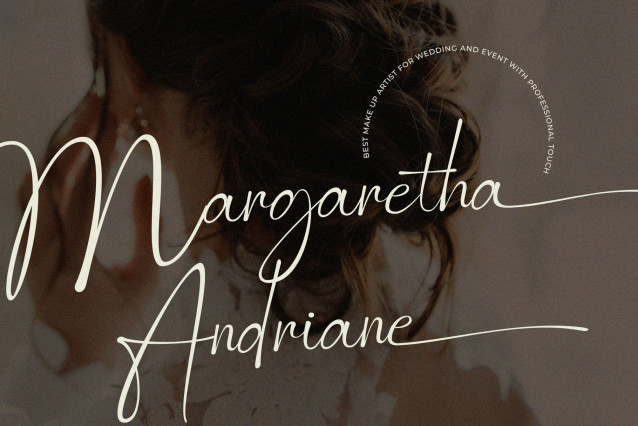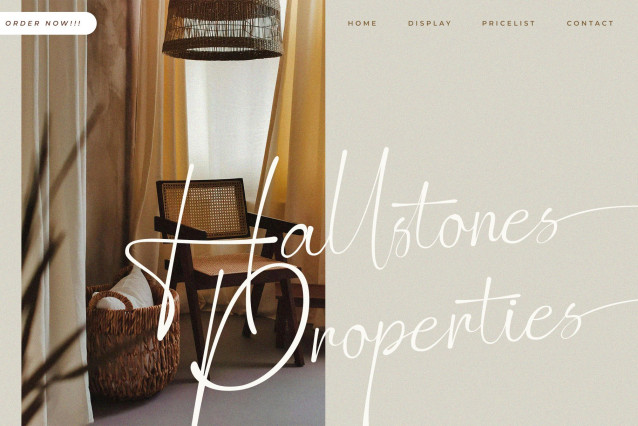
Balligesta Signature Font
Balligesta Signature Font is a elegant and stylish handwritten script, that you can use to perfect your design. You will get full set of lowercase and uppercase letters, multilingual, numerals and punctuation.